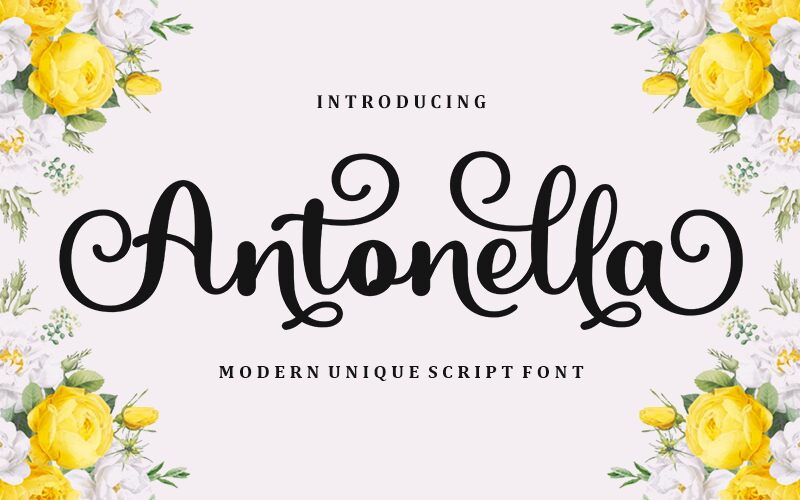
Antonella, designed by Mu Fazzal, is a captivating modern calligraphy font with a semi-bold weight and semi-expanded width. Its flowing curves and elegant strokes add a touch of sophistication to any project.
Perfect for wedding invitations, luxury branding, or fashion magazines, Antonella exudes an air of refinement and grace. Whether used in print or digital media, this font will effortlessly elevate your designs and captivate your audience.
Embrace the beauty of modern calligraphy with Antonella Typeface.
Features : Lowercase Beginning & Ending Swashes & Ligatures.